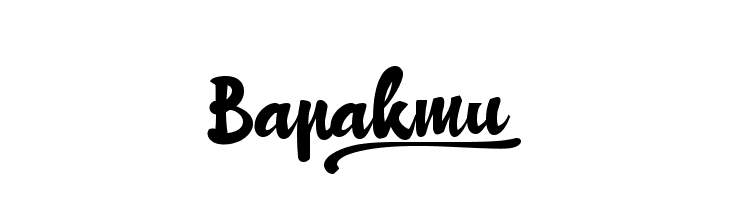
A playful, bold font with a hand-drawn, whimsical style.
A flowing, elegant script font with bold, cursive strokes and artistic flourishes.
A playful and elegant handwritten font with flowing, connected letterforms.
A bold, dynamic script font with flowing strokes and expressive style.
A bold, dynamic handwritten font with thick strokes and a playful style.
A bold, playful script font with a handwritten style.
A playful, handwritten font with smooth, rounded edges and a casual style.